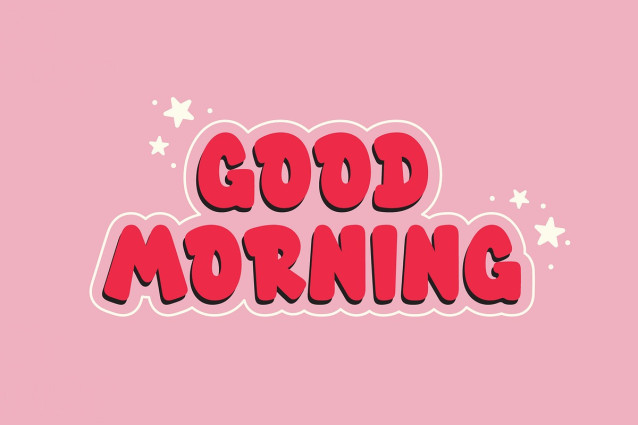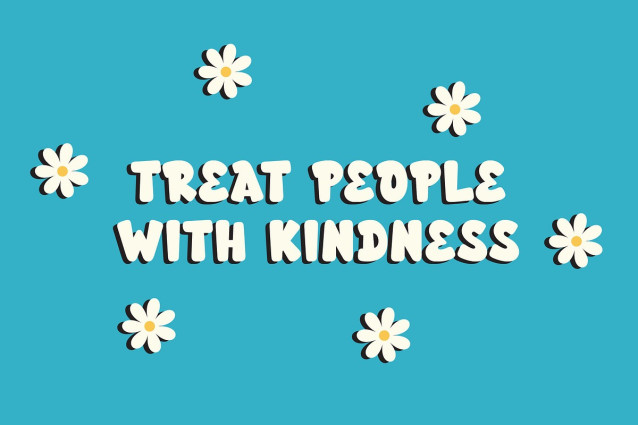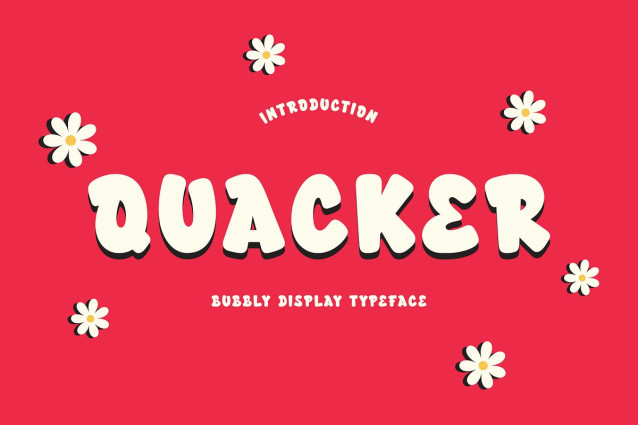
PGR Quacker Font
PGR Quacker Font is a font that’s sure to make a splash! Its playful bubble design and hand-drawn feel create a sense of excitement and energy, making it perfect for designs that need to grab attention. Whether you’re creating logos, magazines, or social media graphics, Quacker is the perfect font to make a splash.